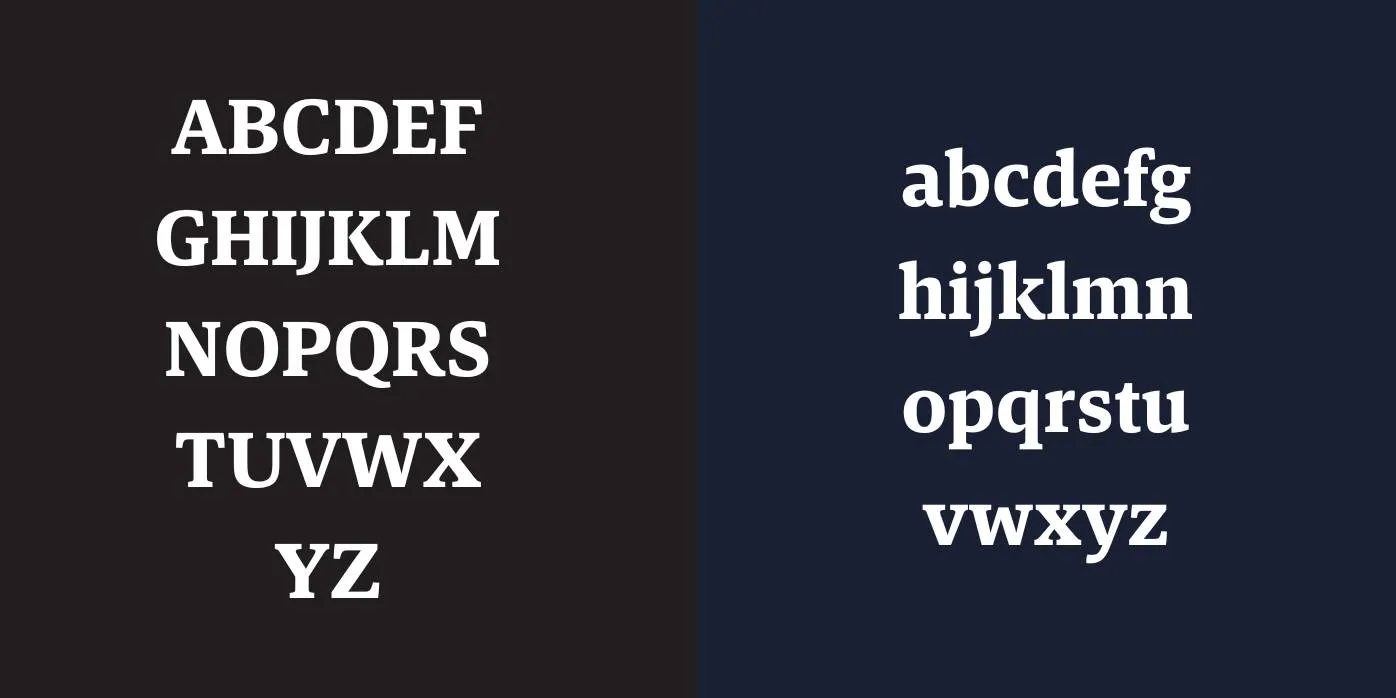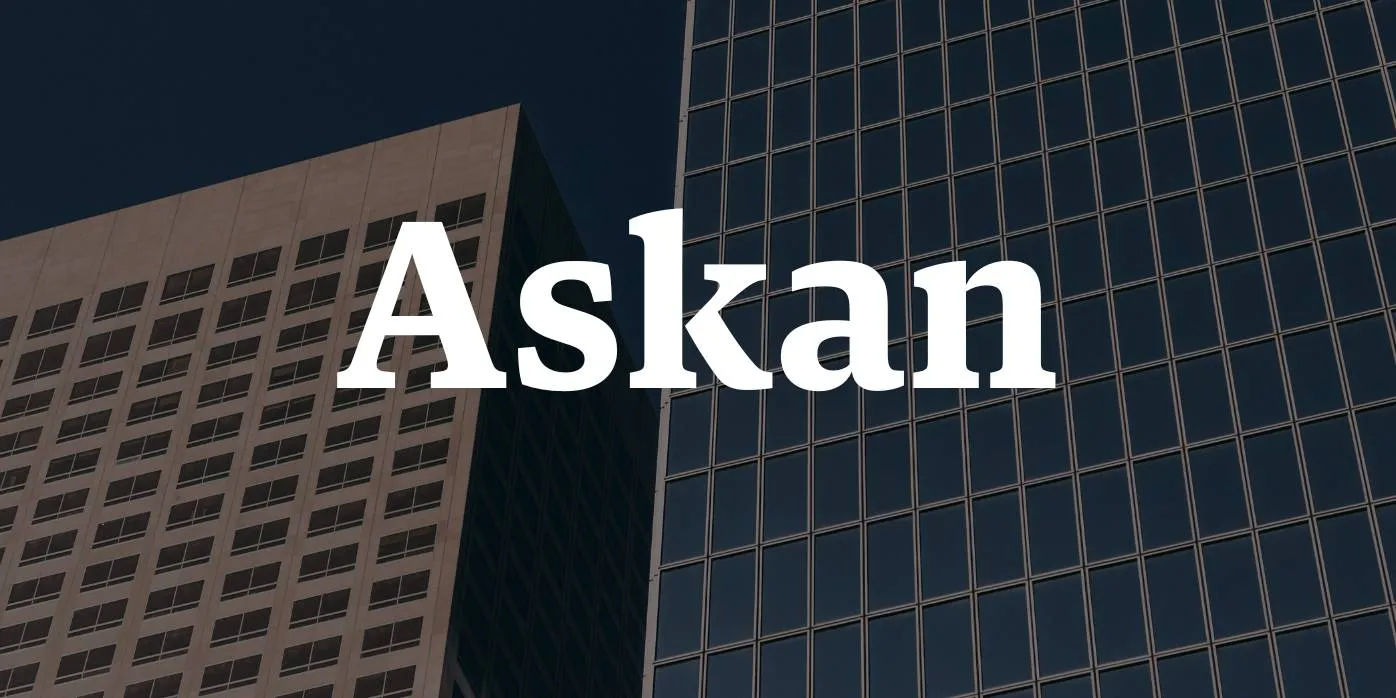
Askan Font
Here we discuss detailed information about Askan Font. This amazing Serif font is designed by Dieter Hofirchter and manufactured by Hoftype. It was designed in 2019 and has a very attractive look. It has 18 different styles which make it perfect for use in text and headlines for different brands and organizations.
The weight of the font is Semi-light and its width is medium (normal). Unicode supported BMP only. It contains 463 characters, 751 glyphs, and 1000 units per Em. You can use this font for pairing with other fonts like florid font to give a more attractive look to your projects.
Languages supported by this font are Latin, Greek, and Symbols. Because of its clear look and some heavy weights, this font has a high readability. You can make both personal and commercial projects by using this font. Usage This stunning font can be used to design many different projects by having full characters set in lowercase, uppercase, punctuations, and symbols.
You can use it to make attractive headlines for any project. It is also a good choice for making logos for different brands. For making website designs and graphic designs in a very attractive look you can use this font as well. It is very suitable for making designs in Adobe Photoshop, CSS, and Canva.